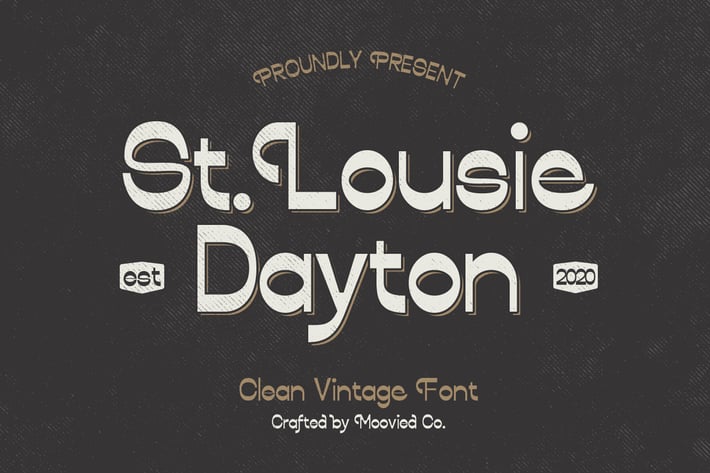
Lousie Dayton Font Sans Display
Lousie Dayton is a unique bold font gorgeous headlines and elegant designs with a vintage that uses unique ligature to display the brand, product, logo and quotation marks of words.